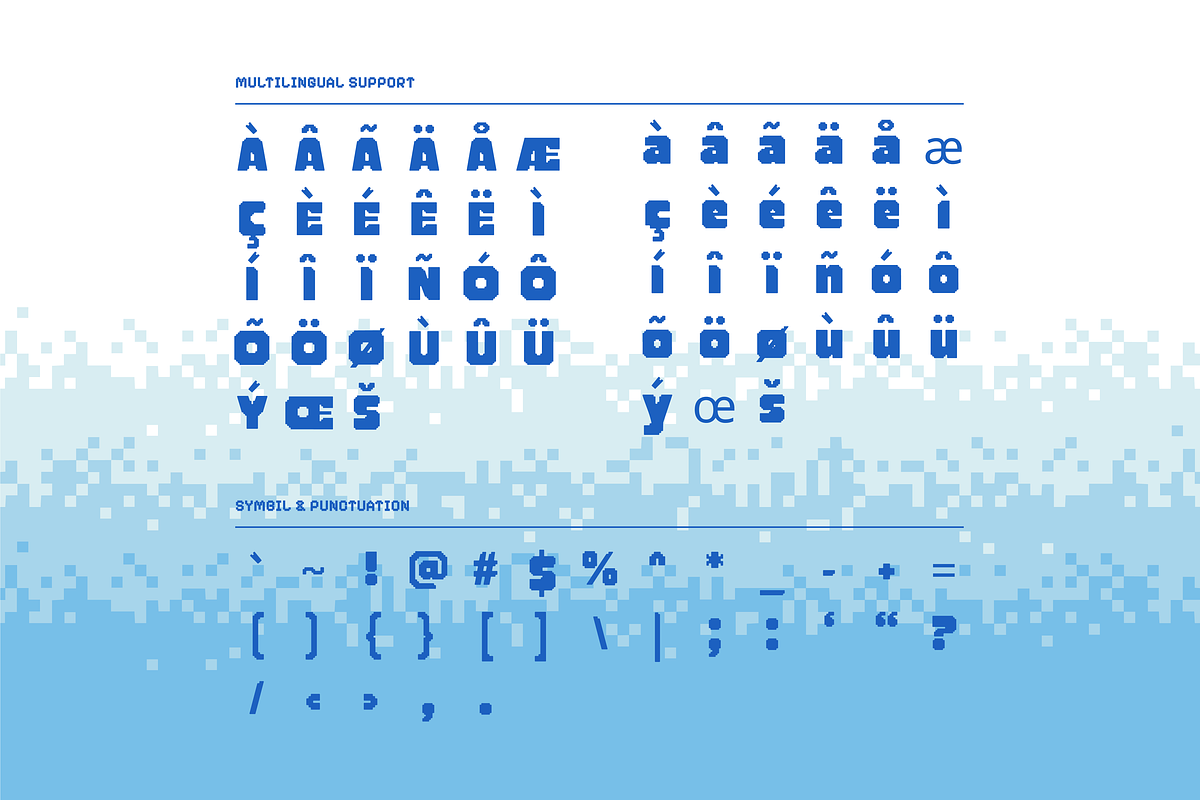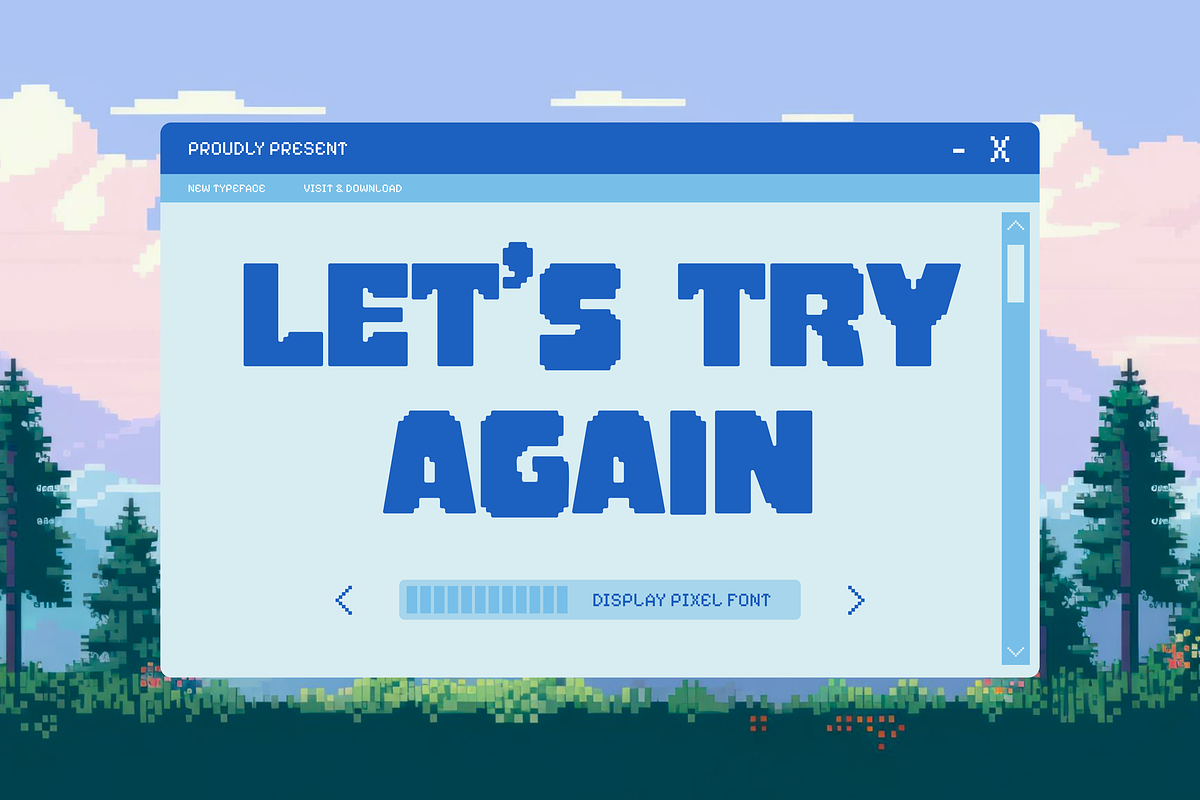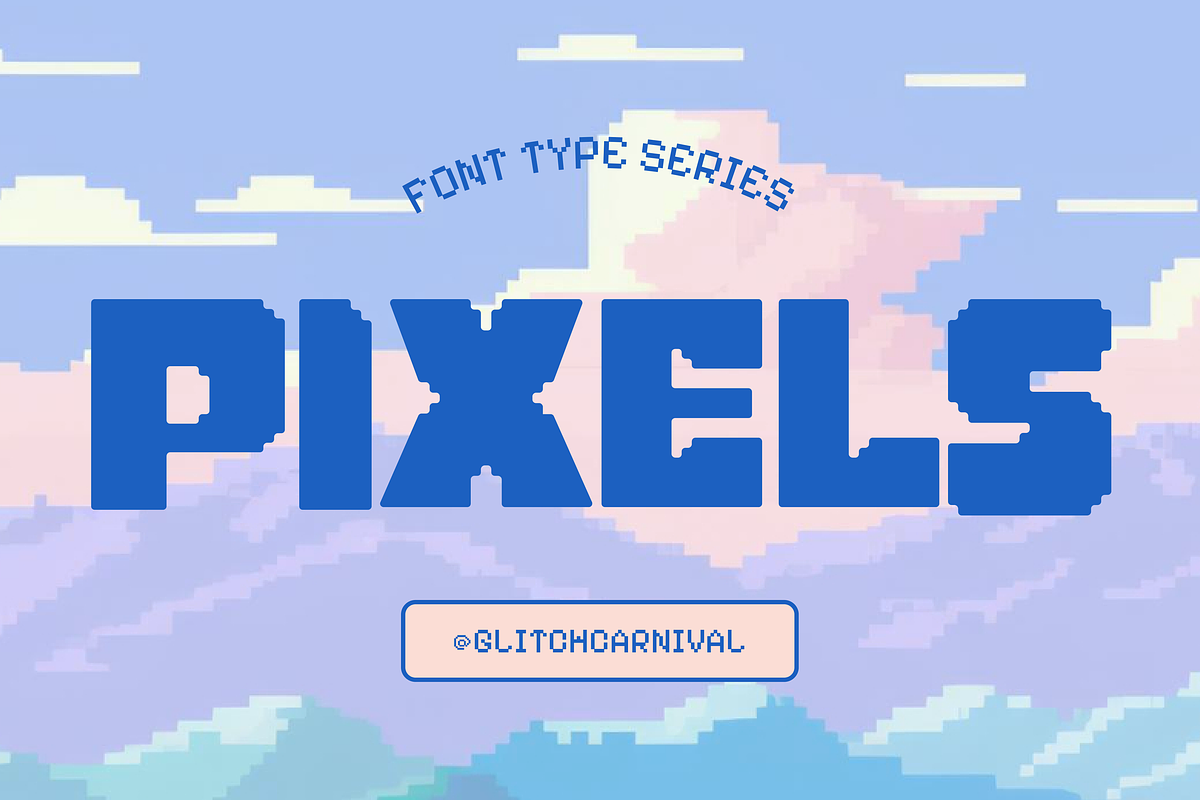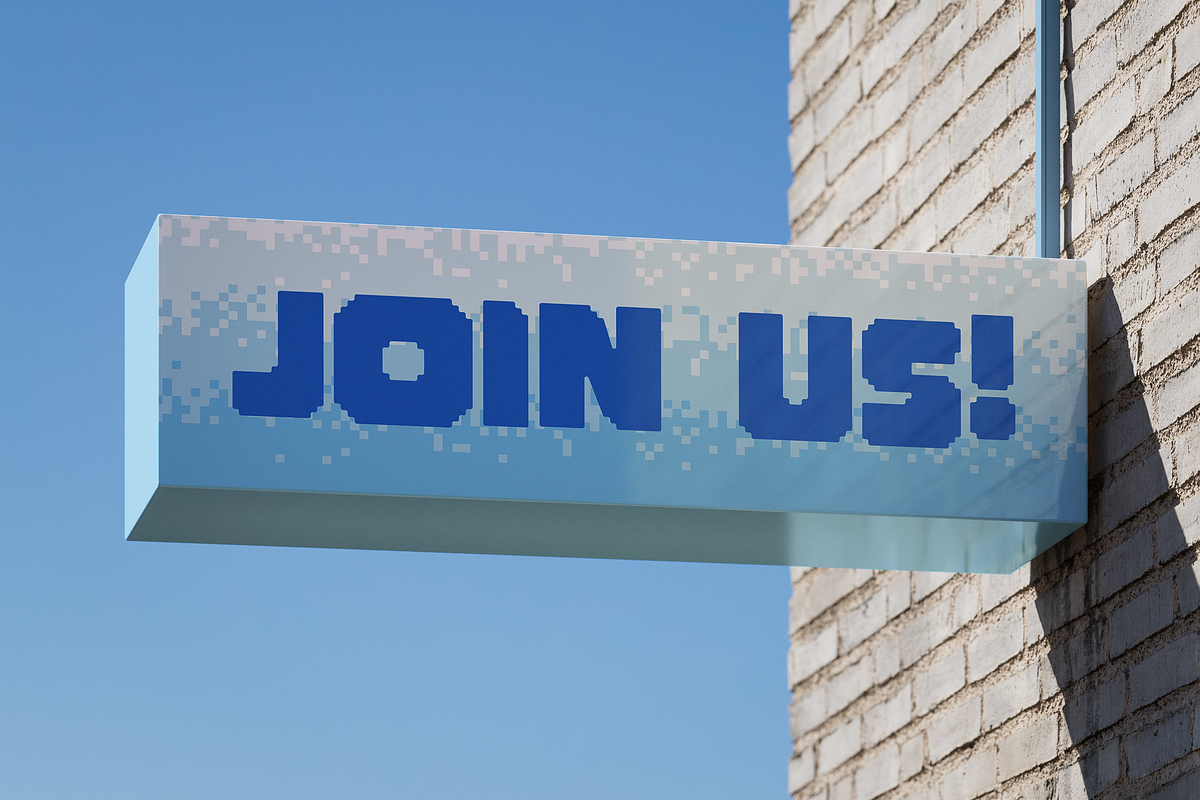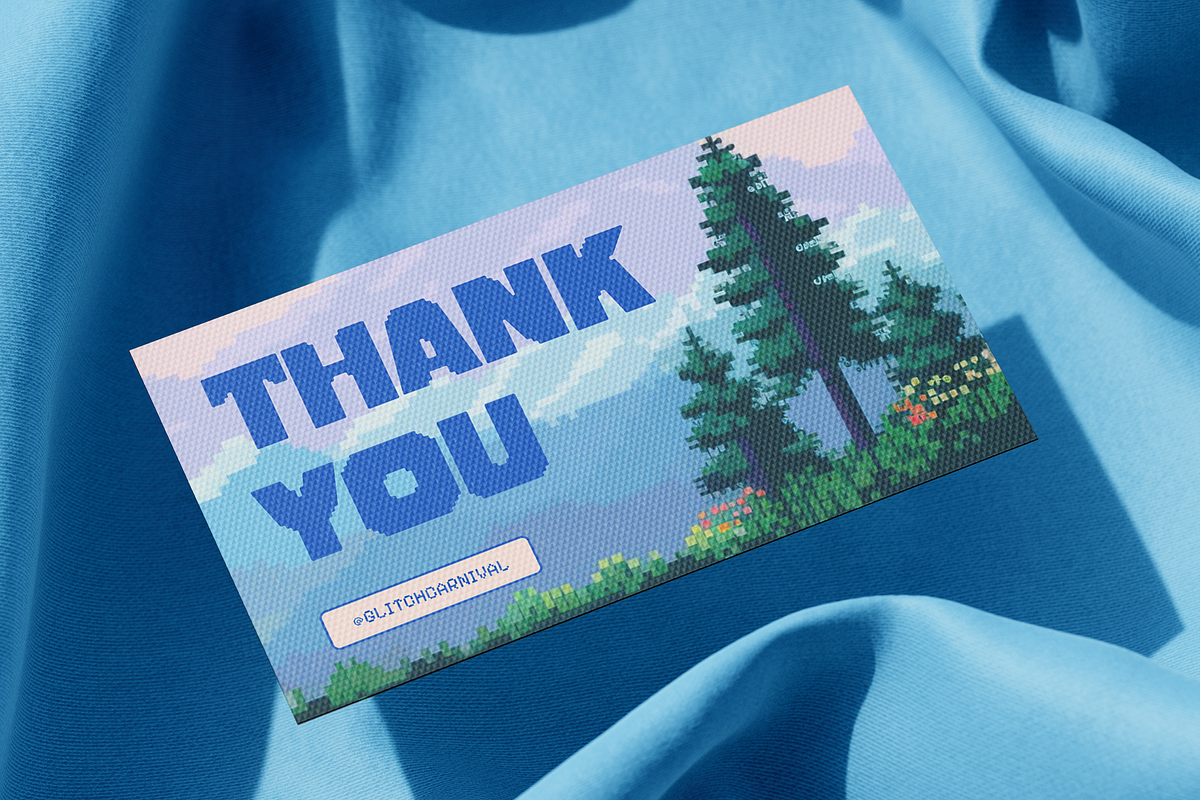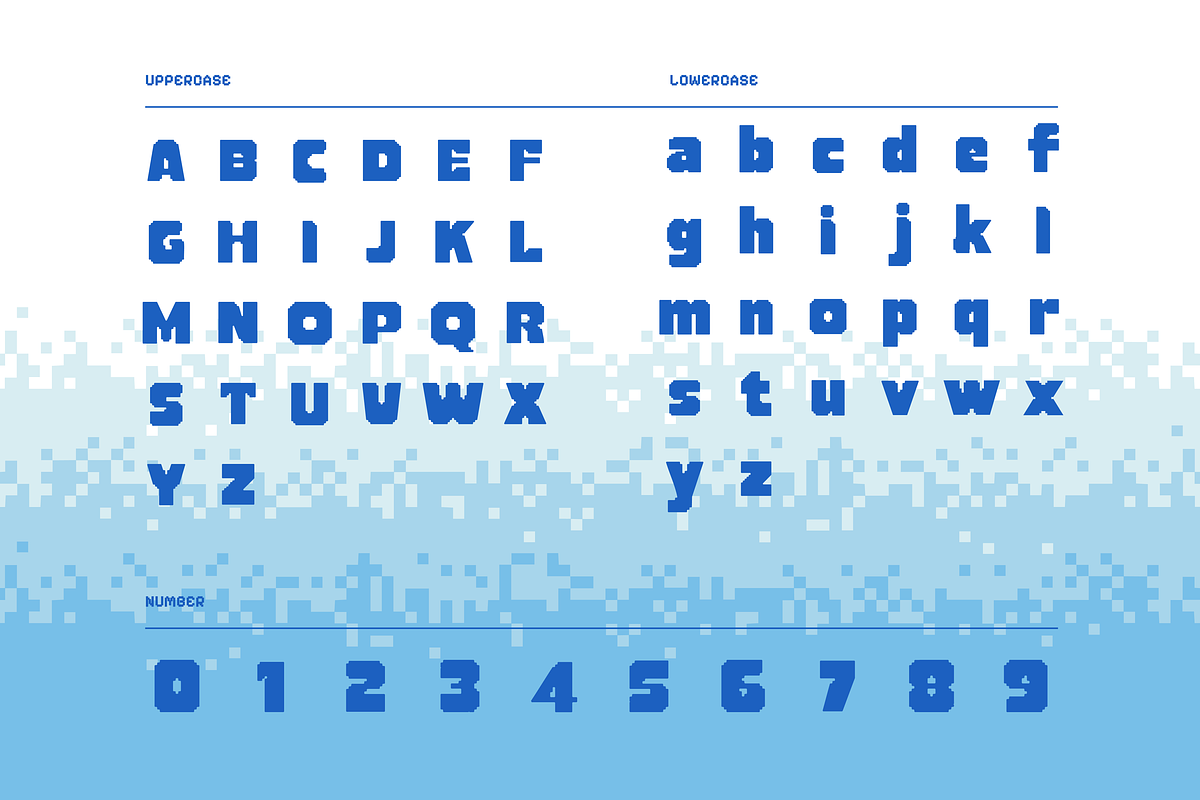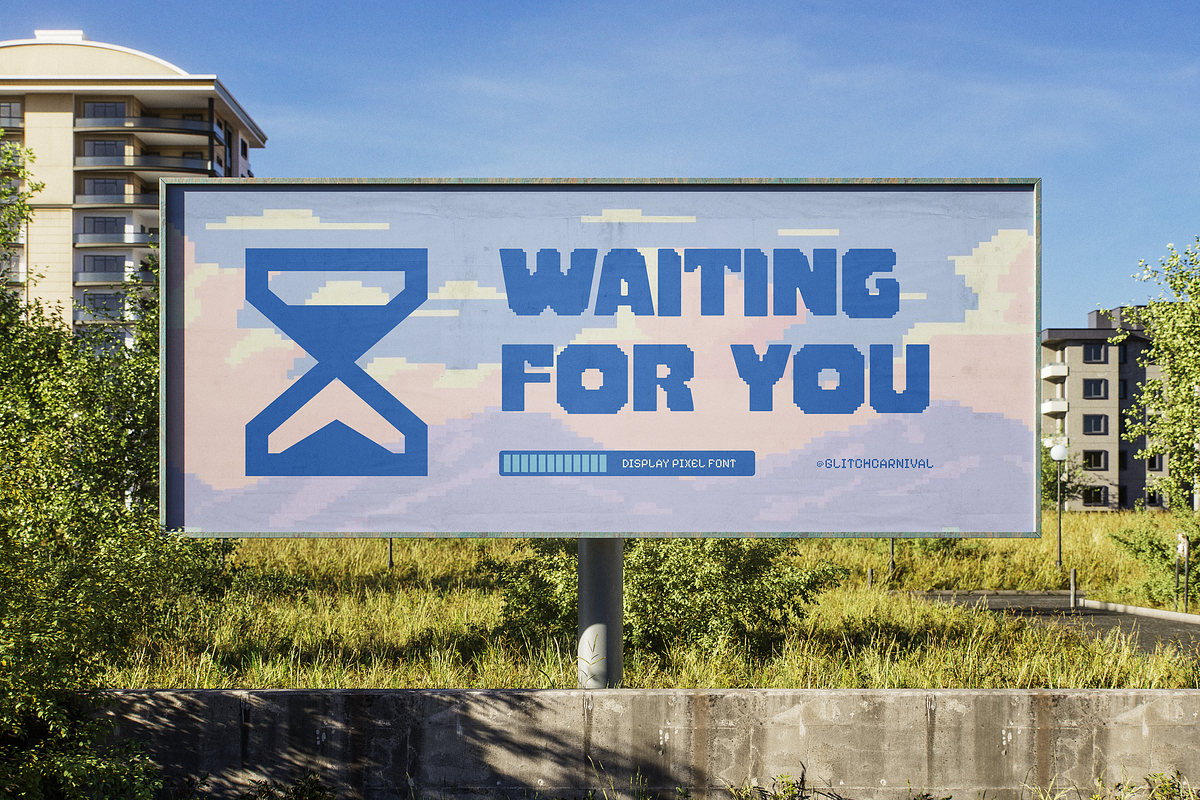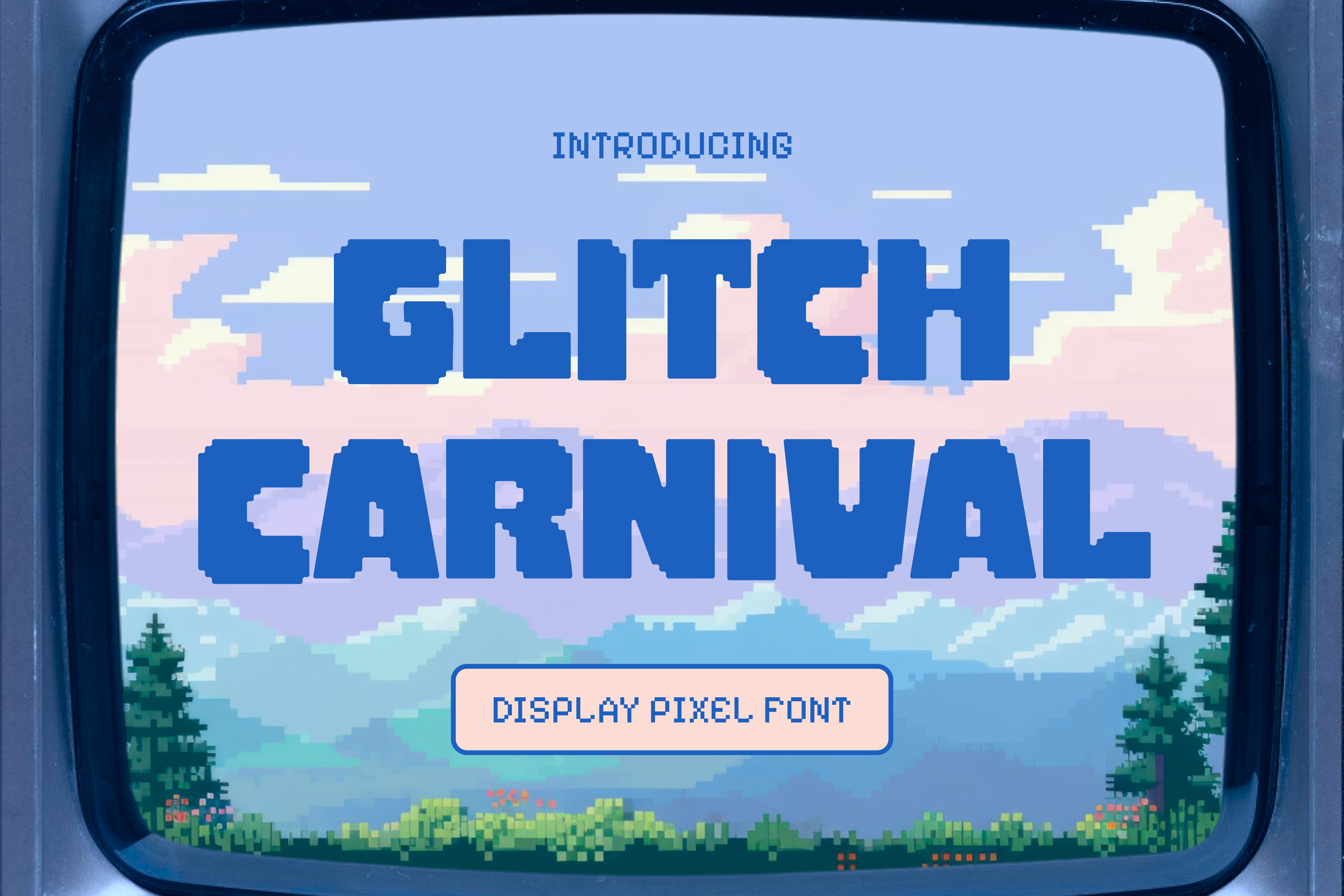
Glitch Carnival – Retro Display Font
Glitch Carnival is a playful and eye-catching display font featuring bold rounded shapes and a cheerful bubbly personality. Perfect for branding, logos, posters, packaging, kids’ projects, and social media graphics, this typeface brings a fun and friendly vibe to any design. Its cute and energetic style helps your visuals stand out and attract attention effortlessly.